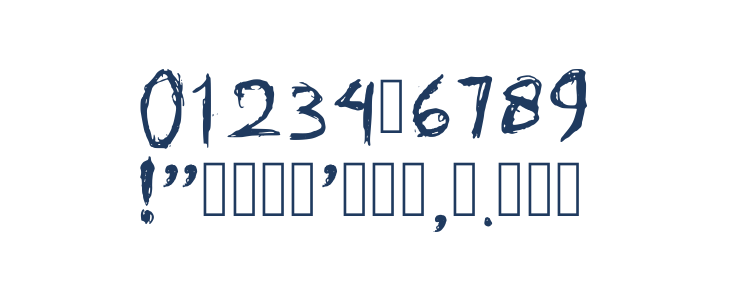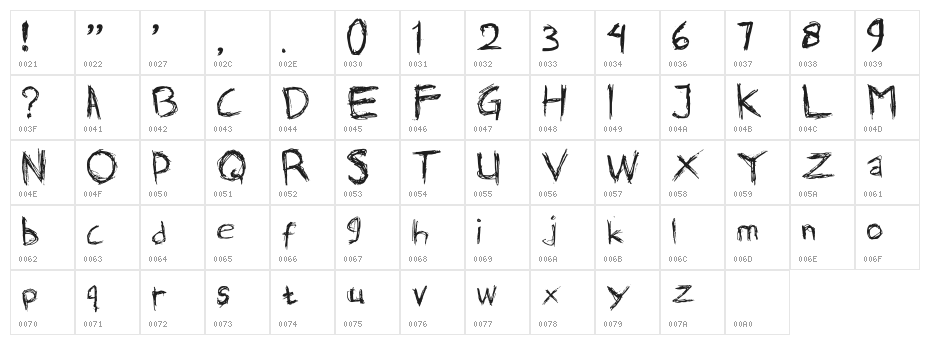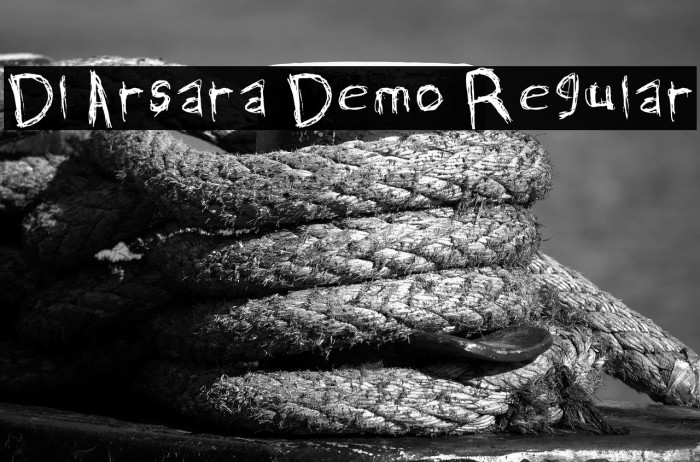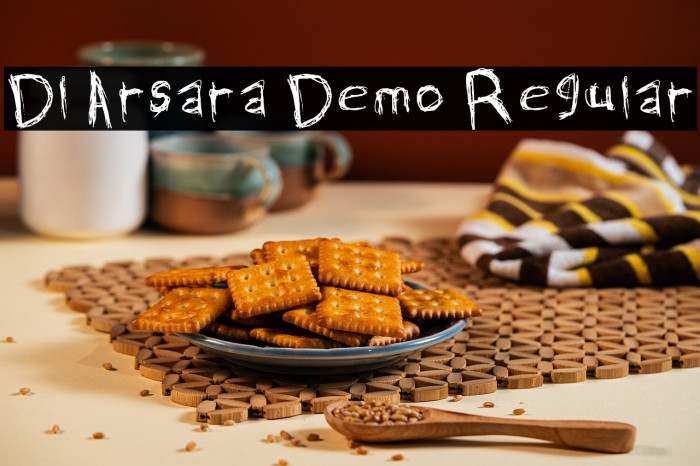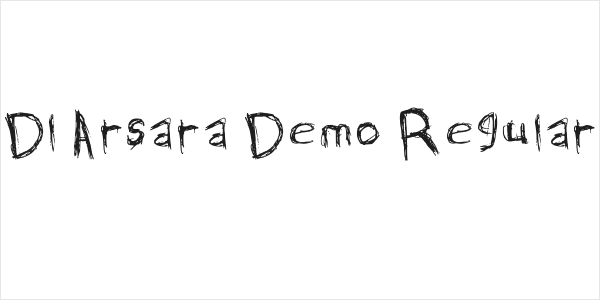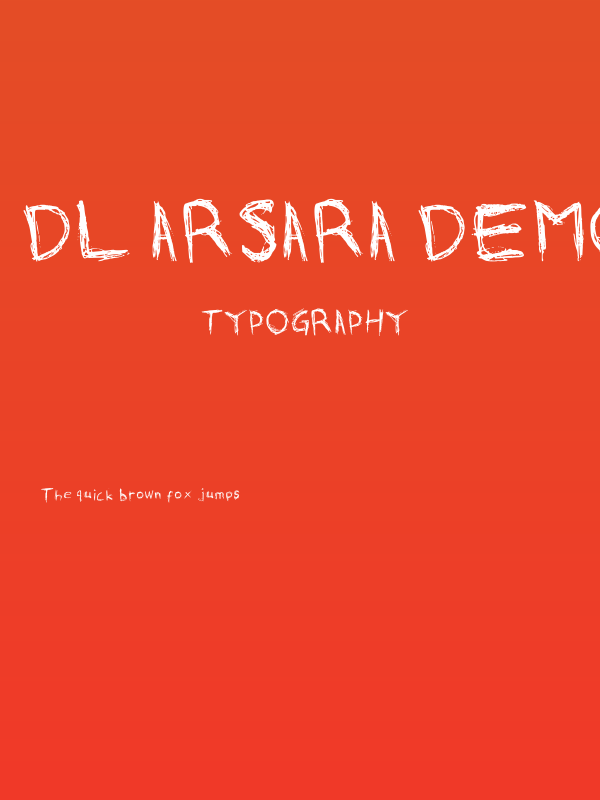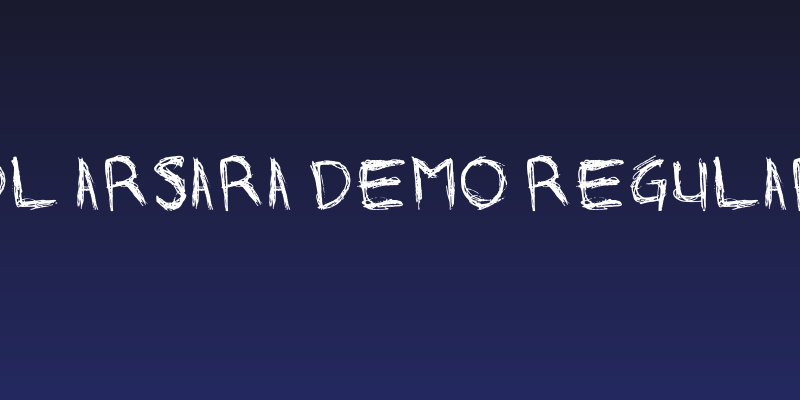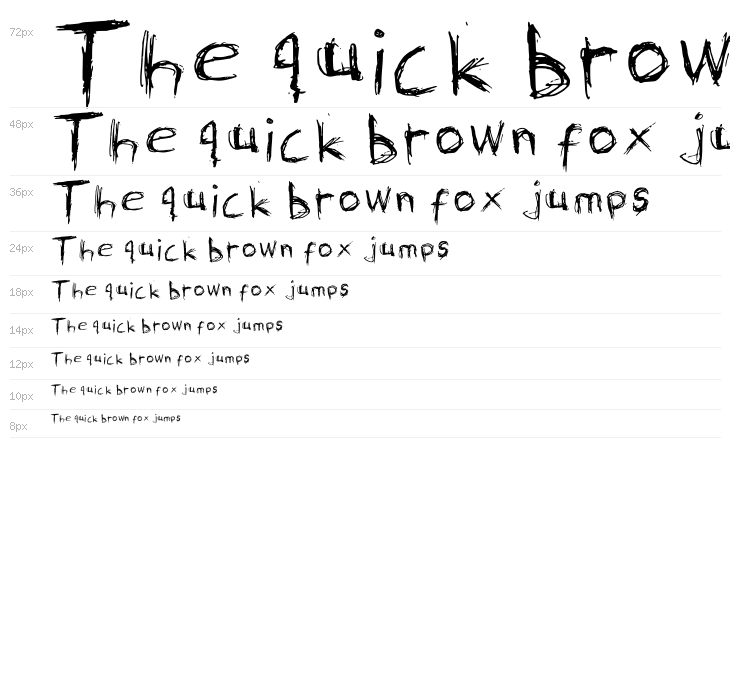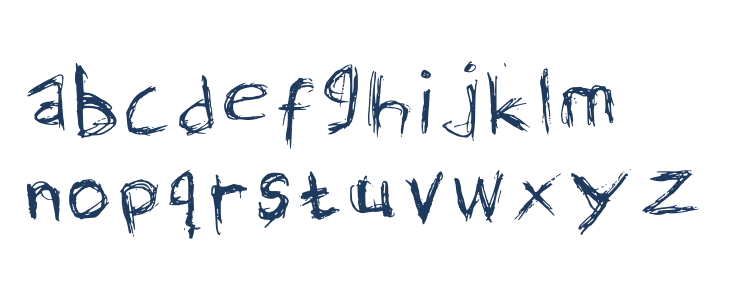
Dl Arsara Demo Regular Font
Dl Arsara Demo Regular Description
This font features a rugged, hand-drawn style with a distinctly organic and textured appearance. The characters are uneven and irregular, giving them a raw and expressive feel. The strokes are bold and vary in thickness, creating a dynamic and energetic look. The uppercase and lowercase letters maintain a consistent style, with jagged edges and a slightly chaotic arrangement. Numbers and special characters follow the same aesthetic, adding to the overall cohesive design. This font is ideal for projects that require a bold, artistic touch, such as posters, album covers, or creative branding.
| Proposed Projects | Ideal for posters, album covers, creative branding, and artistic projects. |